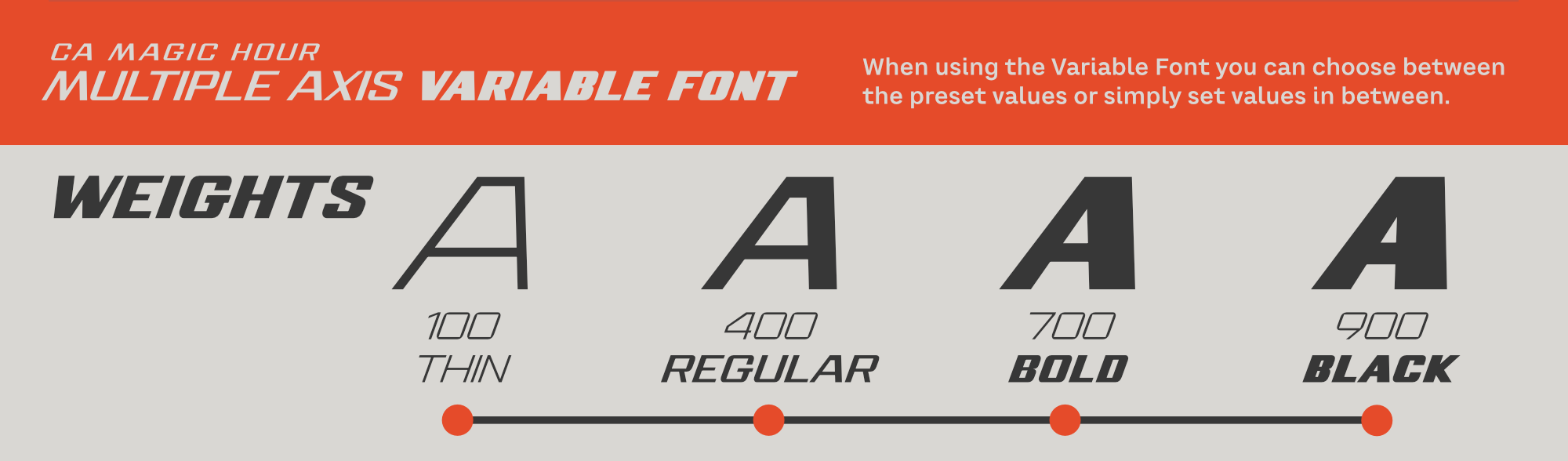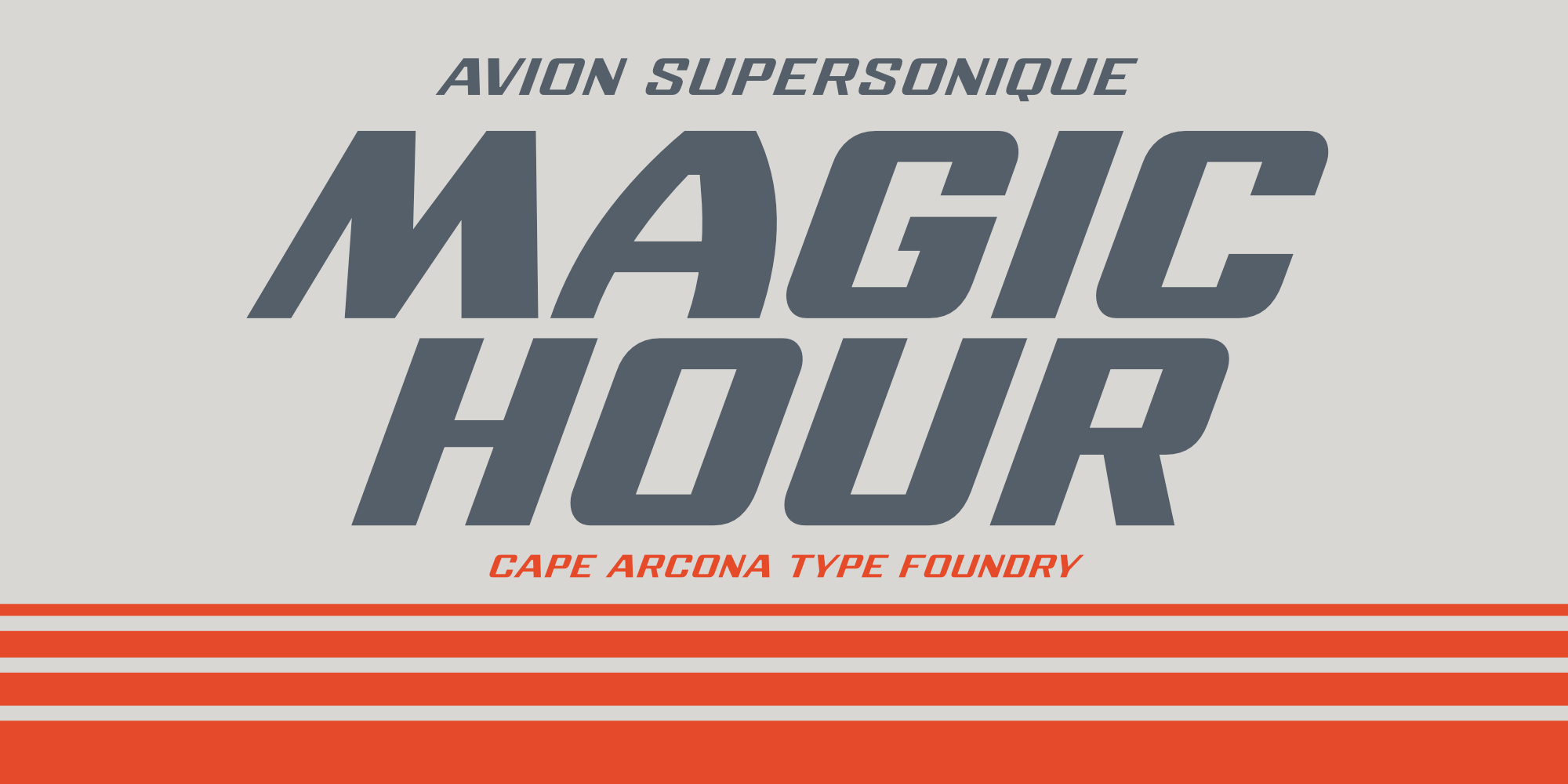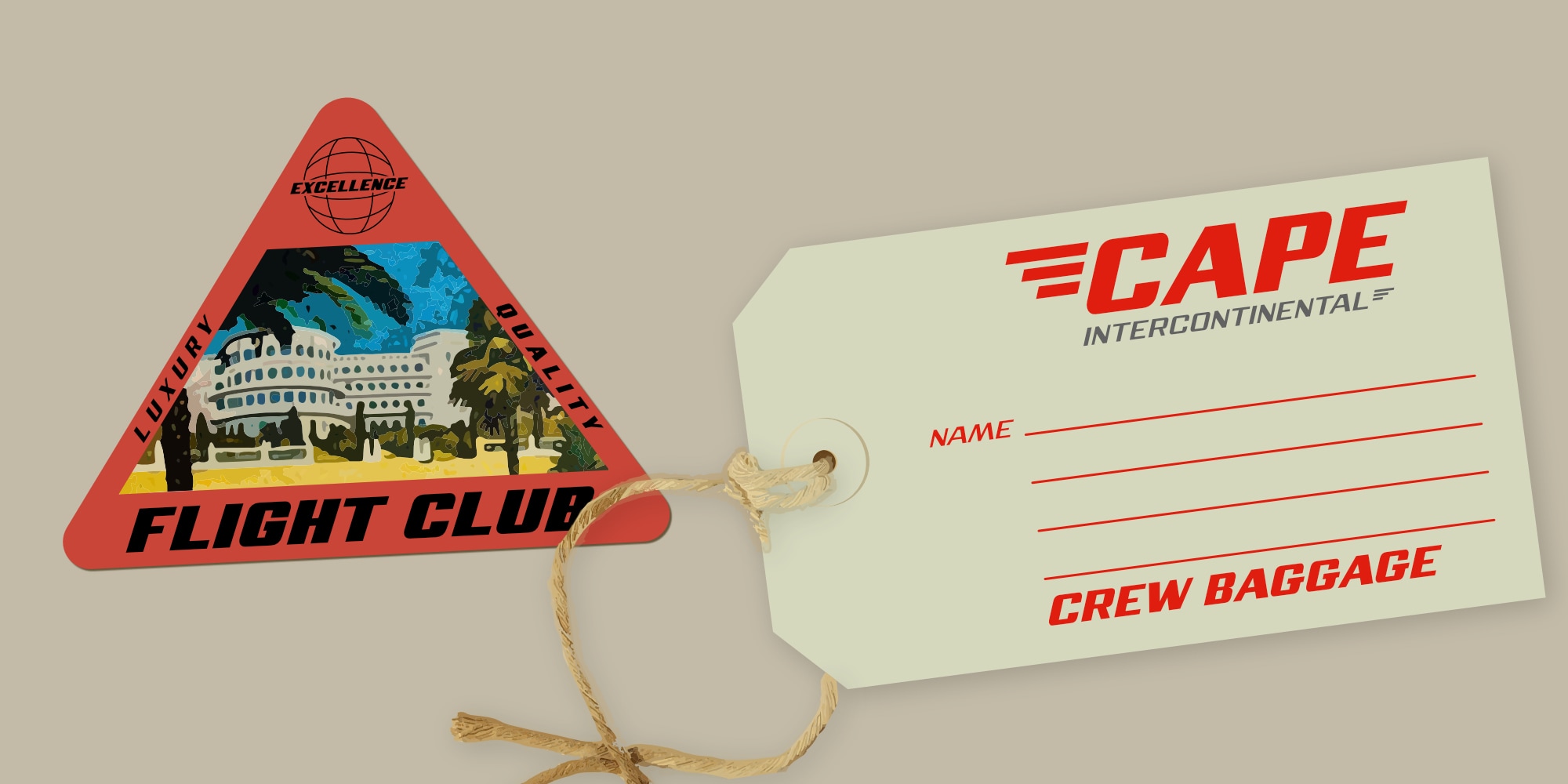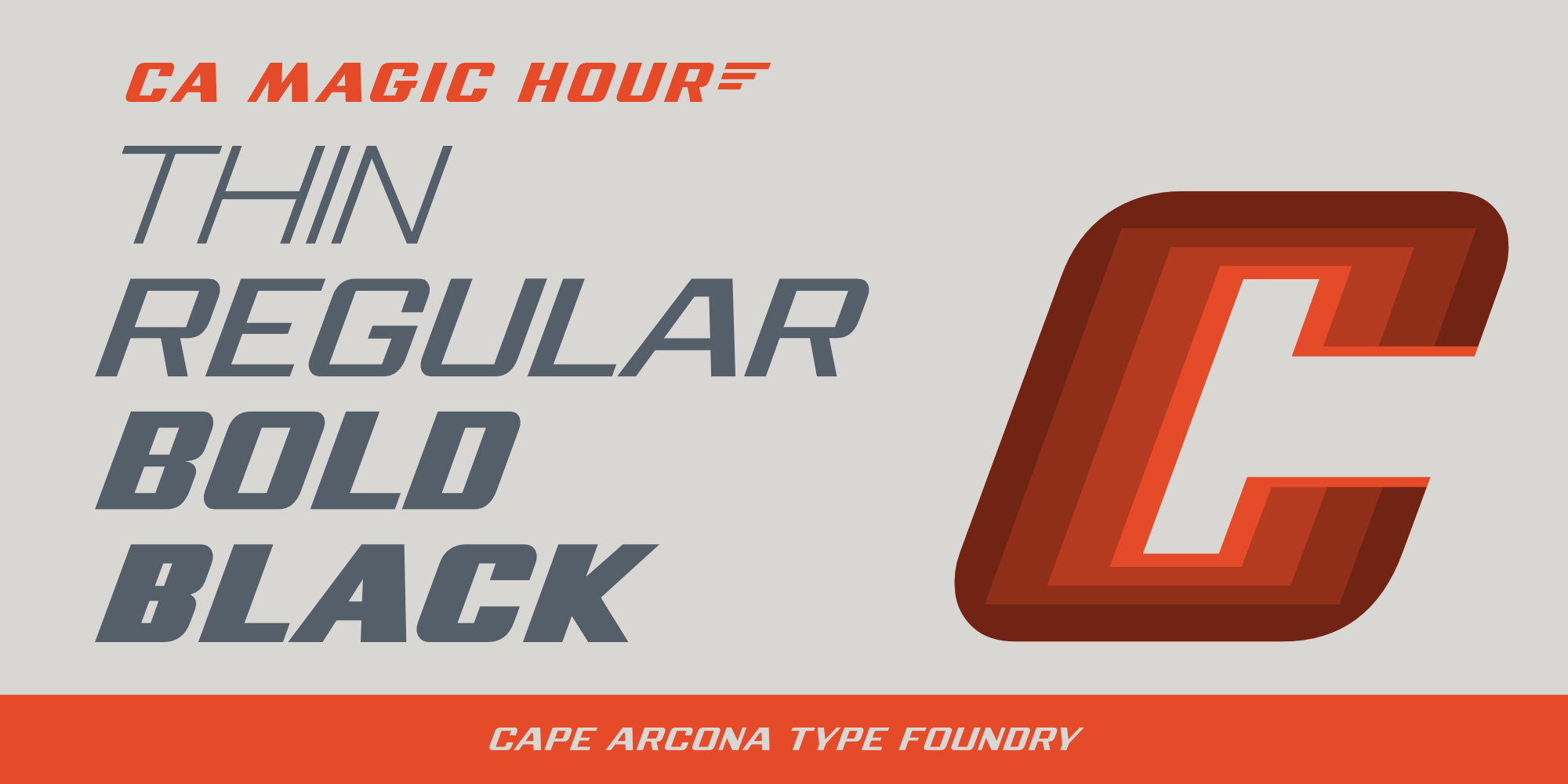
Do you remember the time when the Concorde was the fastest passenger plane on earth? When it was possible to travel from Paris to New York in 3 ¾ hours? That were cool times. Times when cocktails tasted delicious, and you didn't think of an eventual headache afterwards. Times when you didn't have to think how to dress because there was only one way.
Straight from that time comes CA Magic Hour. A vintage, uppercase-only typeface born in 2004, revisited in 2026 – optimistic and straightforward, it will speed up your designs. Bring back the Supersonic feeling. The Magic Hour is that brief window of perfection – and CA Magic Hour captures exactly that spirit. Originally released with Bold, the family now includes Thin, Regular, and Black. What makes it truly special: across all four styles, every letter keeps its exact width. Switch from Thin to Black, the rhythm of your text stays untouched. Just like the Concorde, same silhouette – different power.